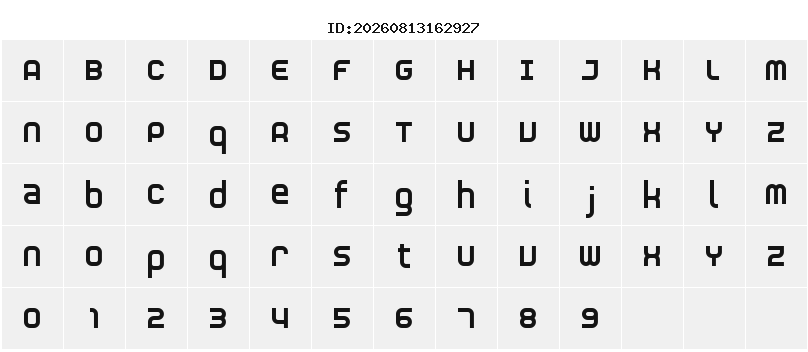
About RNS SERIAL.ttf
RNS SERIAL.ttf is a modern, elegant sans-serif font designed for ultimate readability and visual harmony. Perfect for branding, headlines, web design, and print materials.